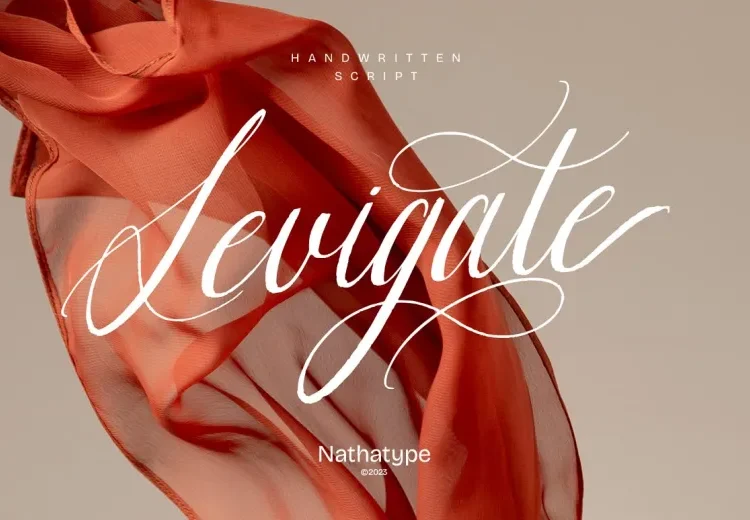
Levigate Font
Levigate is an elegant handwritten script font that beautifully captures the essence of cursive writing with sophistication. Featuring high contrast between thin and thick strokes, the font exudes excitement and charm, making it ideal for projects that require a chic and refined appearance. The fluidity and motion in the letterforms lend an energetic feel, while its playful details add a unique flair.
This typeface is perfect for creating impactful headlines, logos, film posters, flyers, greeting cards, invitations, branding materials, editorial layouts, and more. Its flowing endings and distinctive design ensure maximum legibility, even at larger text sizes, making it a versatile choice for a wide range of creative projects.